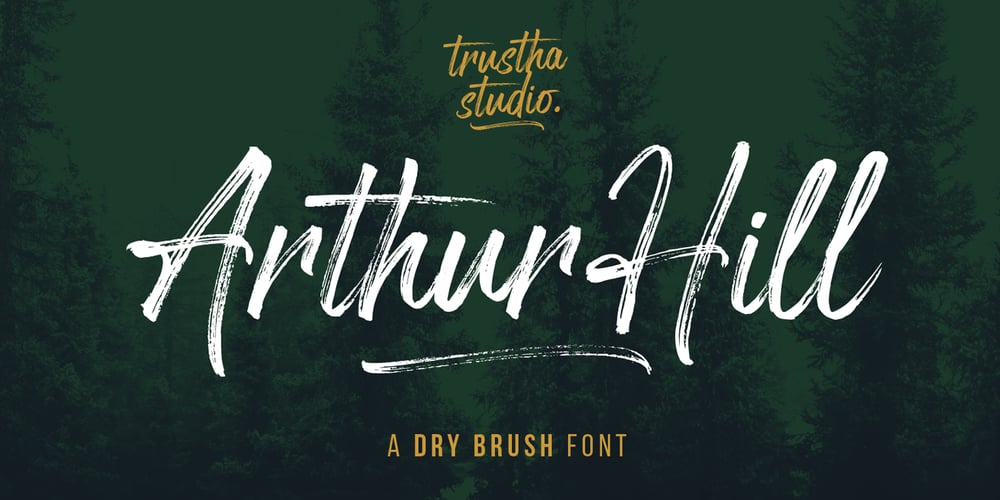
Arthur Hill Font Family was designed by Bagas Ardiatma and published by Trustha. Arthur Hill contains 3 styles and family package options. Arthur Hill is handwritten with dry brush pen. With sharp details, this font is perfect for branding, logo, book covers, packaging, website headers, greeting cards, poster, merchandise, fashion campaigns, newsletters, album covers, quotes, and more.